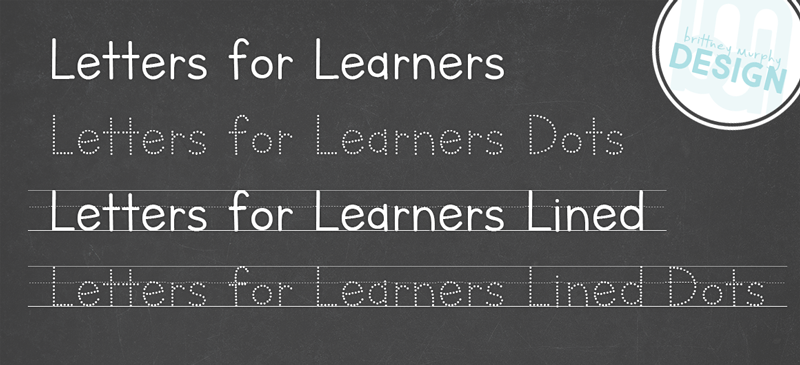
Letters for Learners Font Family is a friendly, legible type set designed with young students in mind. Each has over 300 characters, including many international letters. Also, in the plain solid and dotted versions, you can use the ^ symbol for a lined space. FREE FOR PERSONAL USE, OR FOR TEACHERS FOR USE IN THEIR CLASSROOMS ONLY. For creating teaching products for sale or distribution, or any other commercial use, please purchase a license here: https://brittneymurphydesign.com/downloads/letters-for-learners-font-family/ |